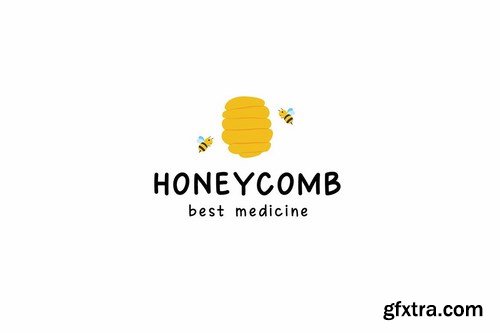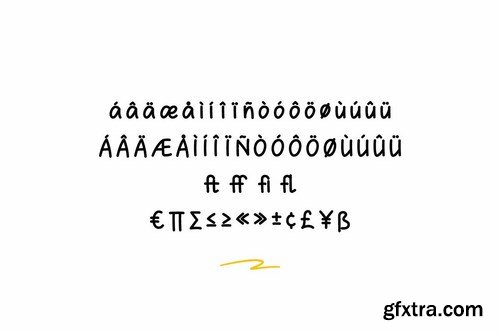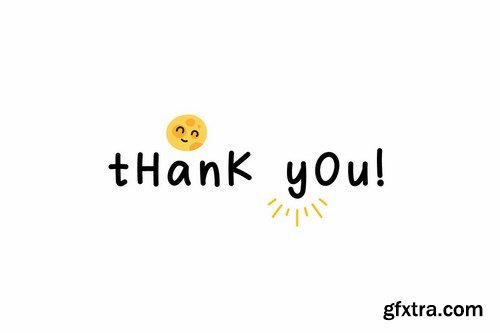
Alongside is a fun handwritten print font comes with two version. Regular and bold. It is cute and easy to read, big or small, which makes it perfect for your branding, cartoon, quote needs! This font is perfect for branding, logos, websites, headings, blogs, children book, quotes, invitations and more!